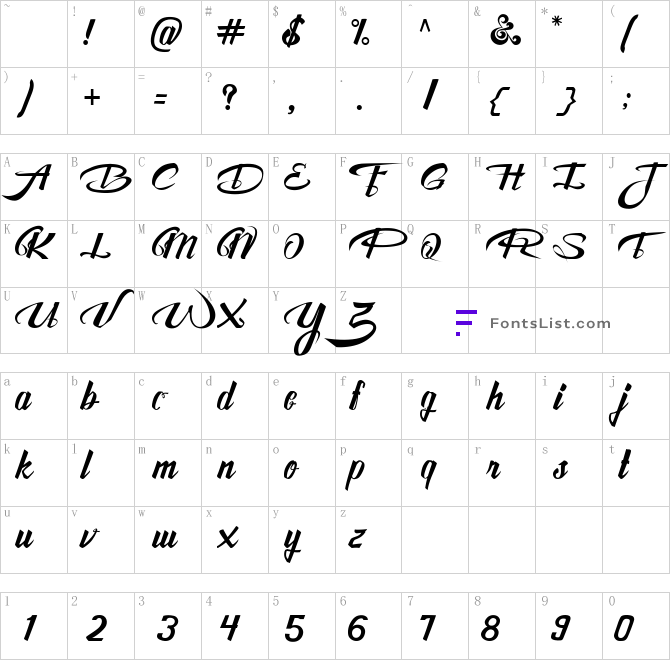
- Font Name:Awesome Free Font
Awesome-Free-Font.ttf is a very beautiful artistic font, Awesome-Free-Font.ttf is widely used in the design and printing of various books and pictures,Awesome-Free-Font.ttf has a strong visual impact,Awesome-Free-Font.ttf is a commonly used font in newspapers, magazines and books, and is used in posters, e-commerce Poster design, store design, logo design, font design and other fields.Awesome-Free-Font.